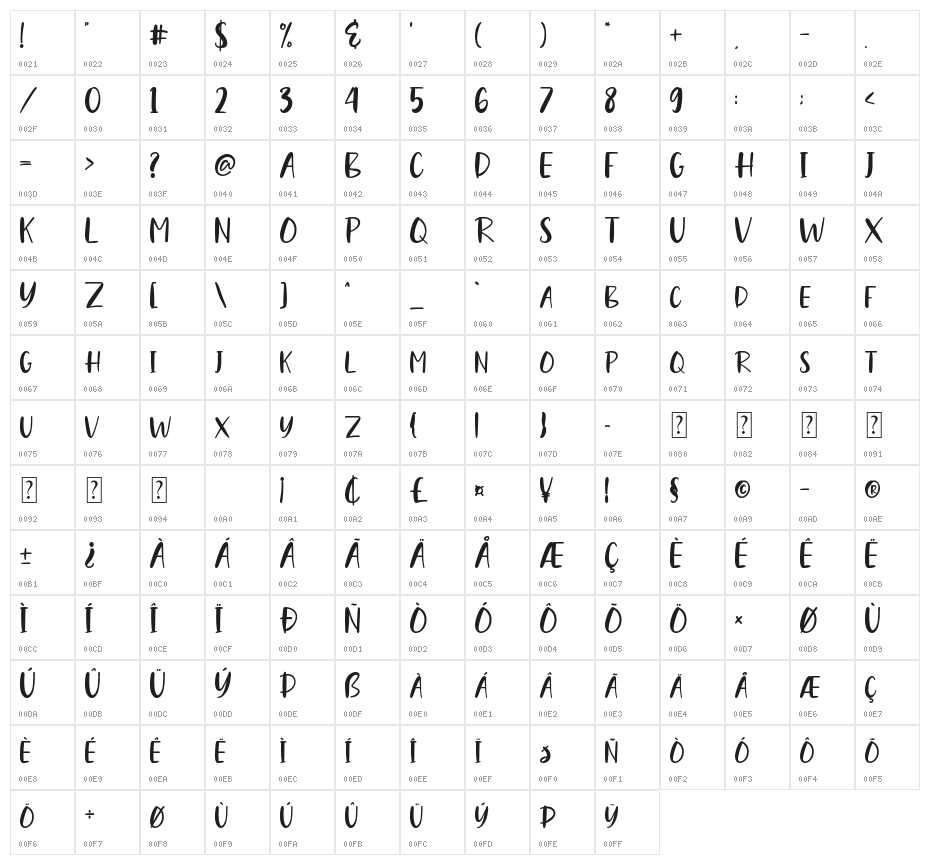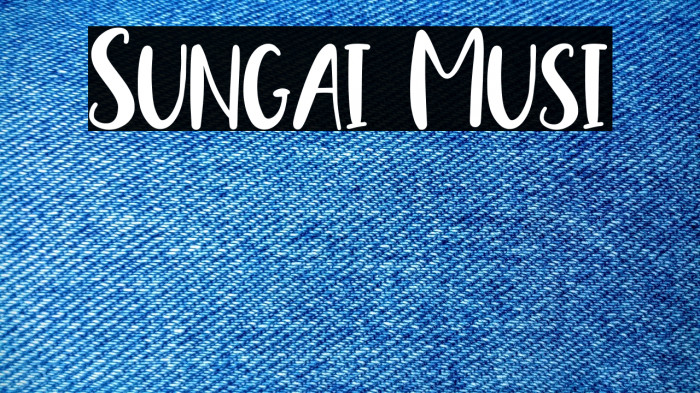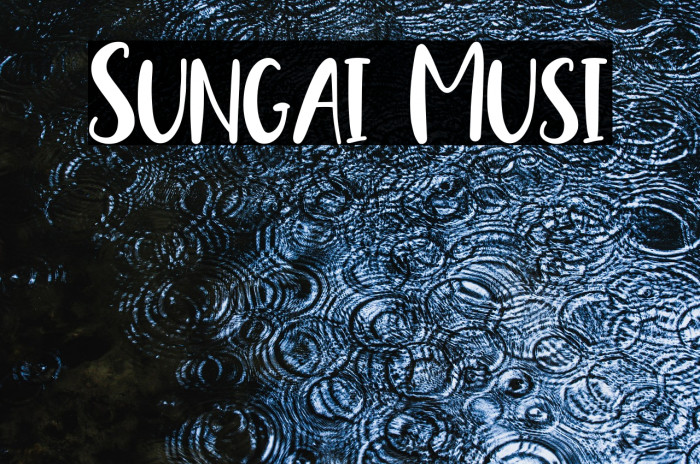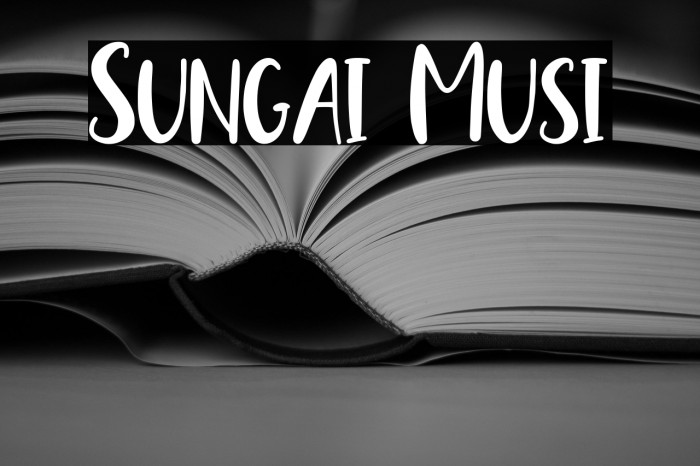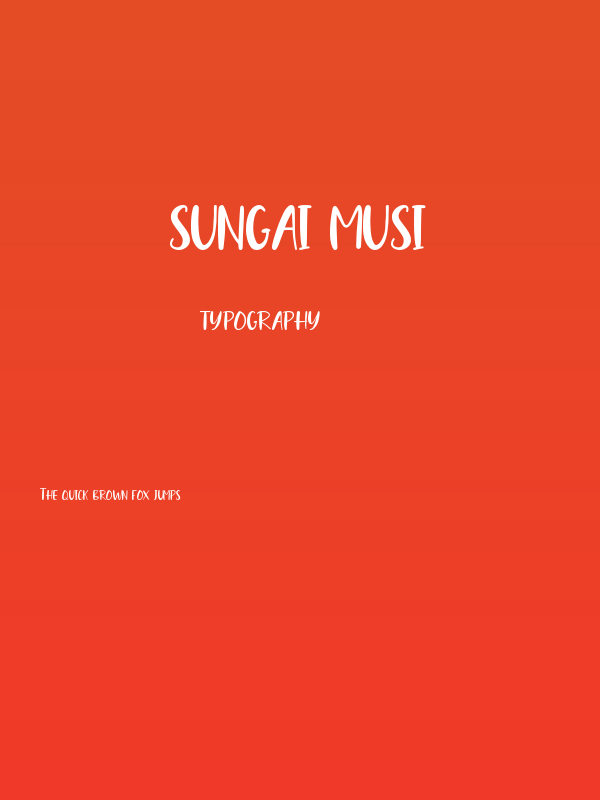
Sungai Musi Font
Sungai Musi Description
This font features a playful and energetic handwritten style, characterized by its bold and slightly irregular strokes. The uppercase letters are tall and narrow, with a consistent height that gives a uniform appearance. The lowercase letters maintain a similar style, with a slight slant that adds a dynamic feel. Numbers are bold and easy to read, matching the overall aesthetic. Special characters are creatively designed, maintaining the playful essence of the font. The overall look is casual yet impactful, making it suitable for a variety of creative projects.
| Overall Style | Playful, Casual |
| Proposed Projects | Ideal for greeting cards, children's books, playful branding, and social media graphics. |